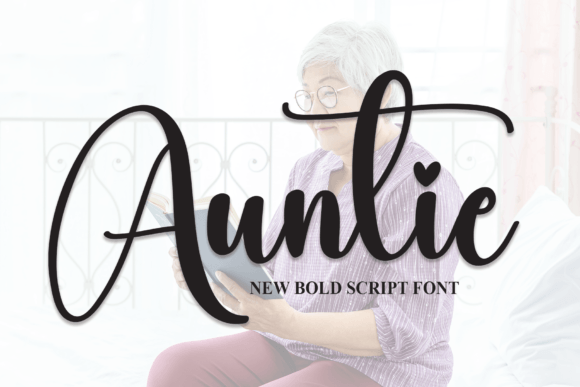
Introducing Auntie Font - your ultimate solution for script writing! Created by andikastudio, Auntie is a script font family that is sure to add a touch of playfulness and fun to any design.
This bold and thick font is perfect for branding and packaging projects that need a touch of whimsy. Auntie Font boasts a chubby appearance that immediately captures the attention of anyone who sees it. Its lively curves and elegant strokes create a perfect balance between creativity and professionalism.
Auntie Font is ideal for designers who want to make a bold statement with their work. Whether you're creating a poster, a logo, a t-shirt design, or anything else, this font family will help you stand out from the crowd.
The Font For Script Writing keyword makes it clear that Auntie Font is the perfect choice for those looking to add personality and character to their writing. With this font, your text will be transformed into a work of art.
In summary, Auntie Font is a must-have for any designer or business owner who wants to inject a little fun into their branding. Its unique style, bold appearance, and creative flair make it the perfect choice for any project that needs a touch of playfulness. Don't miss out on the opportunity to enhance your designs with Auntie Font today!